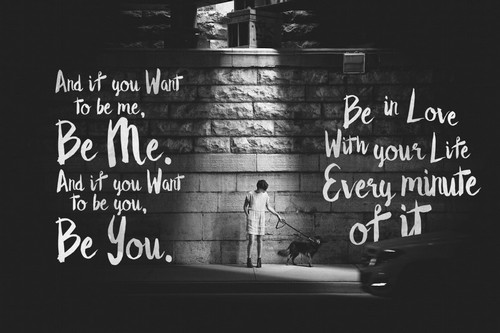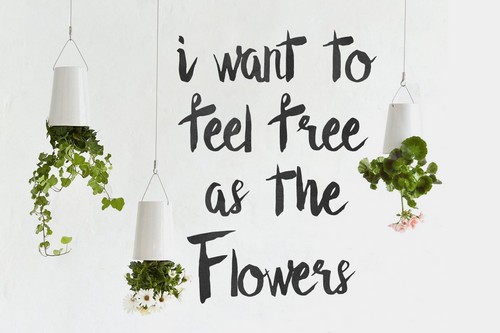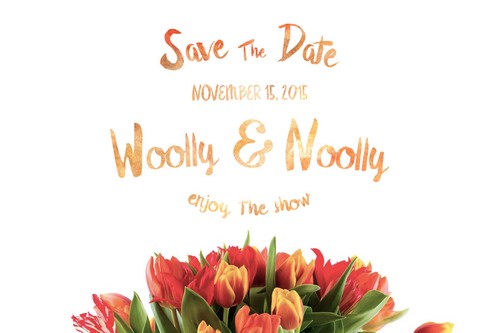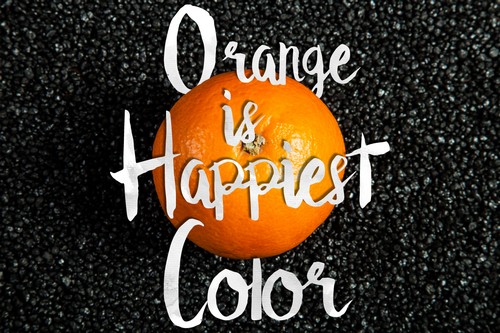
Valerie Brush
Valerie Brush Font
Valerie typeface created manually using a paint brush and ink. This font can help to to good display, Can be used for design posters, invitations, magazines and all of your handcrafted projects presentations. This Valerie typeface includes A-Z(upercase), a-z(lowercase), Numbers and some punctuation.